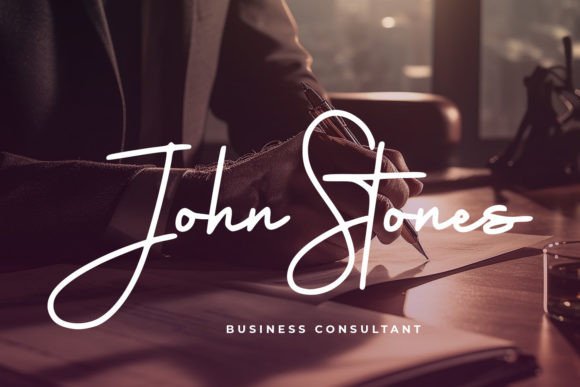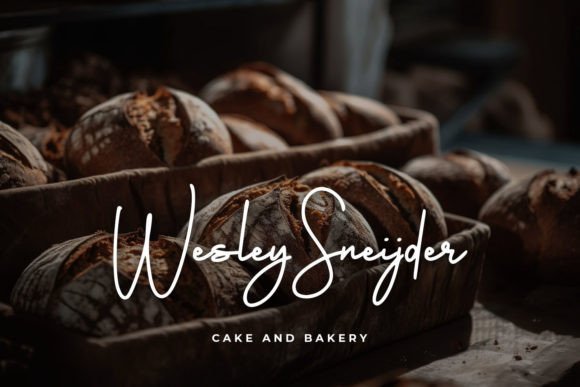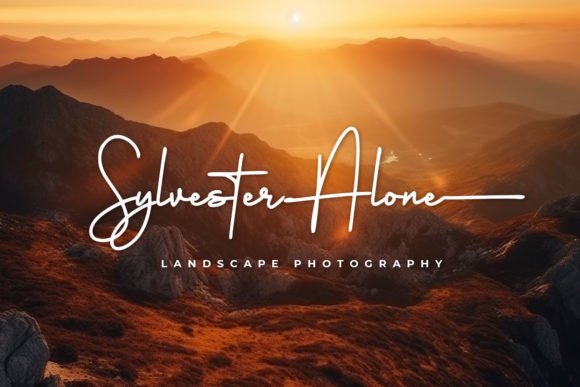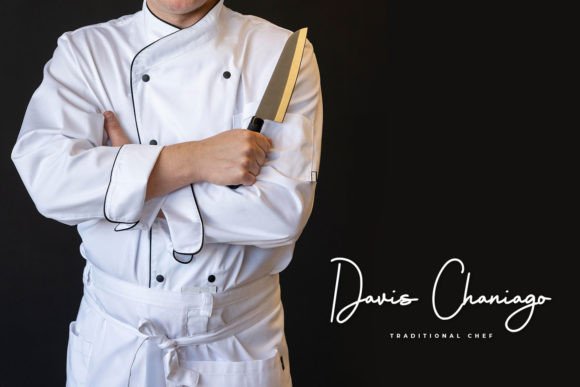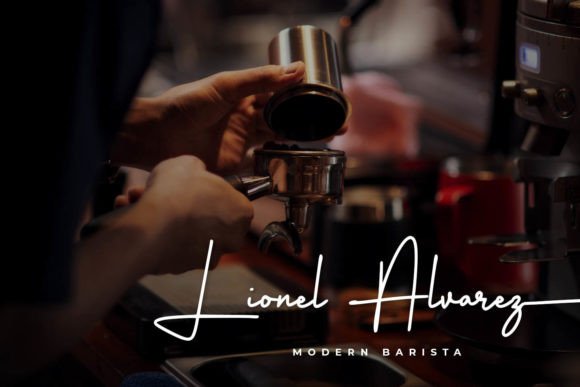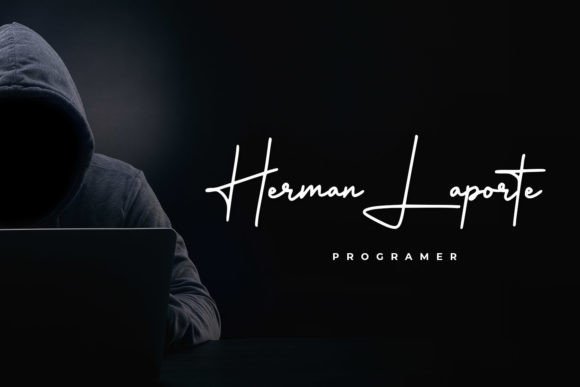
Introduction to Indirection Font Font
Fonts play a crucial role in design, and the Indirection Font font is a typeface that brings both character and versatility to any project. Whether you’re working on a branding project, a website, or a print design, the Indirection Font font offers a unique style that can elevate your work.
INDIRECTION – bold signature font – INDIRECTION is a natural signature font.
It is great for branding, packaging, quotes, logos, t-shirt designs, tote bag designs, cards, banners, social media, and more .
Key Features of Indirection Font Font
Why Choose Indirection Font Font?
The Indirection Font font is more than just a typeface – it’s a design tool that helps you communicate your message with style and clarity. Its unique character set and versatile design make it suitable for a wide range of applications, from elegant invitations to bold headlines.
With its carefully crafted letterforms and balanced proportions, the Indirection Font font ensures readability and visual appeal across all mediums.
What makes Indirection Font font special?
The Indirection Font font stands out with its unique design, exceptional readability, and versatility across various design applications.